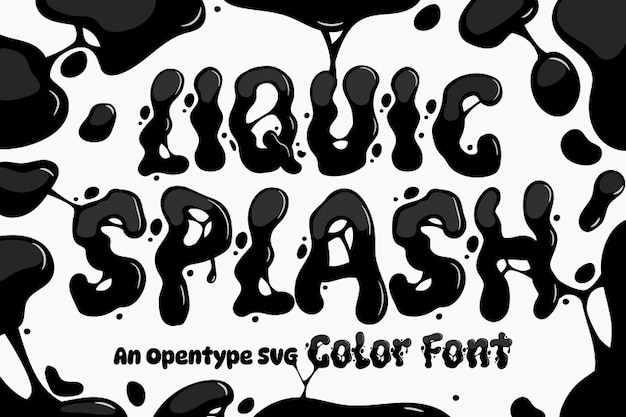
Liquic Splash is a quirky font that embodies the fluidity of liquid with its vibrant, psychedelic design. Each letter is a playful explosion of shapes and colors, evoking a sense of movement and creativity. Perfect for music festivals, art projects, or any design that craves an energetic vibe, Liquic Splash adds a fun, eye-catching touch, inviting viewers to dive into its colorful world.